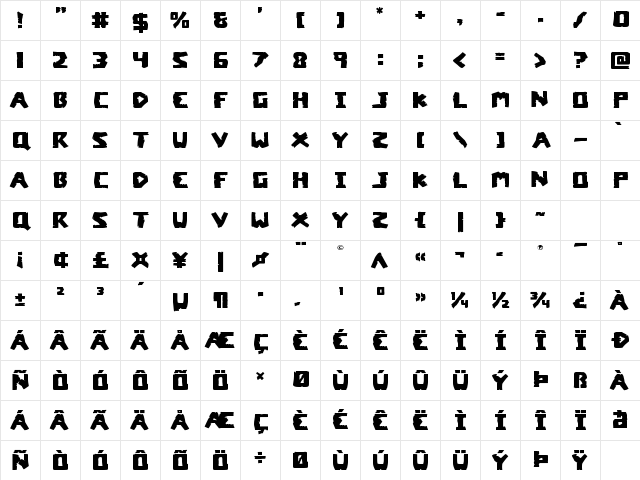
Complete Coffin Stone Expanded glyph index. Displaying only characters natively supported by Coffin Stone Expanded font.
Coffin Stone Expanded is a composed and adaptable typeface that performs quietly and consistently across a wide range of design contexts.